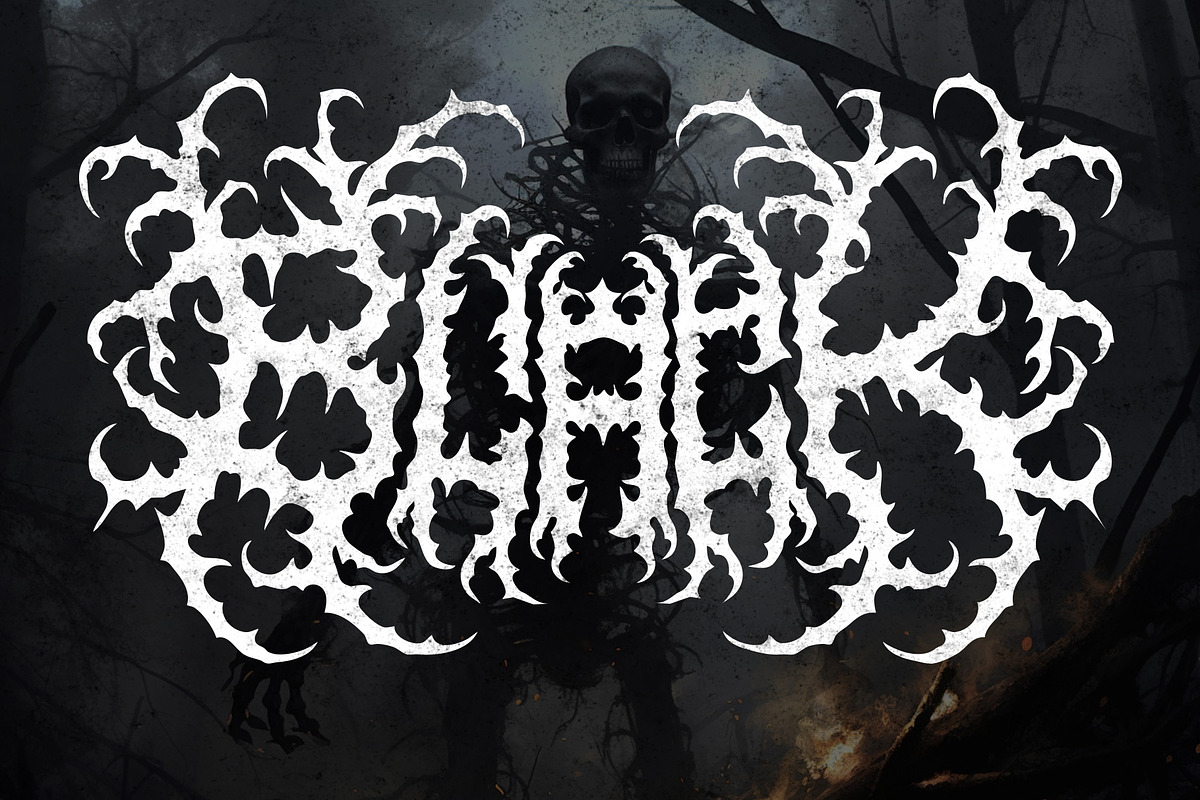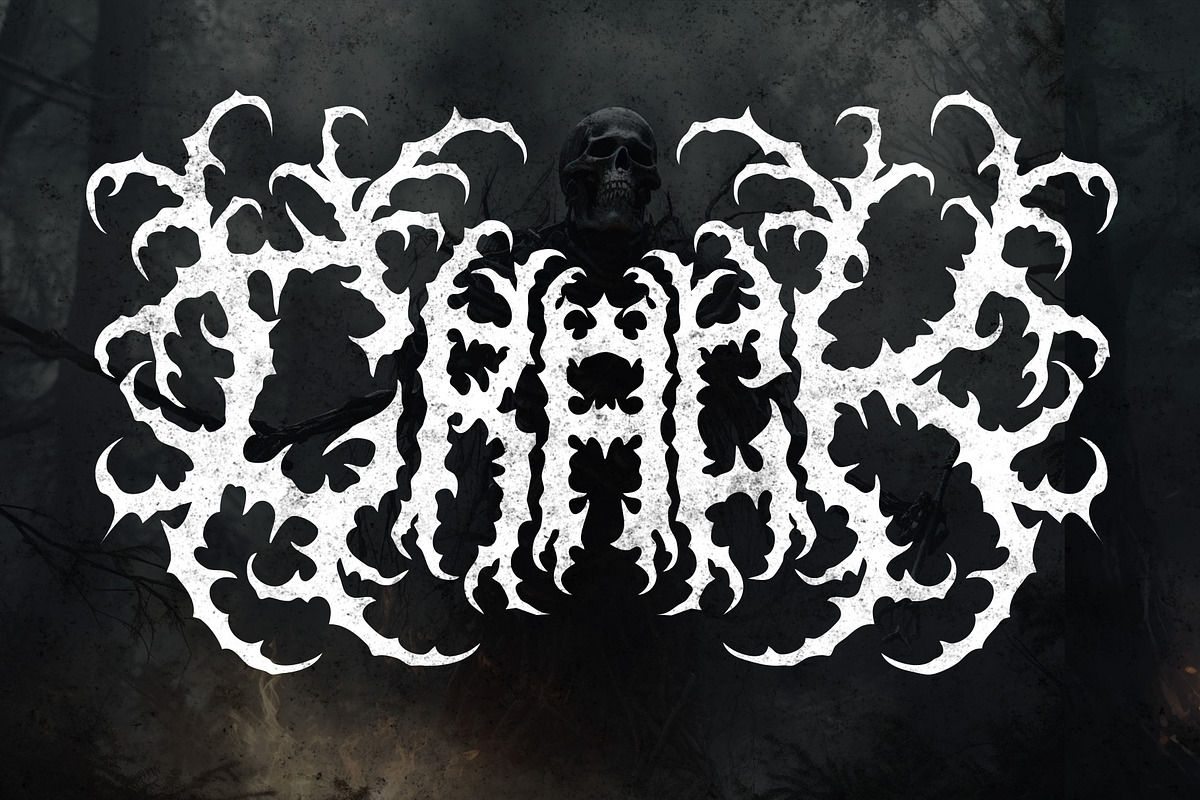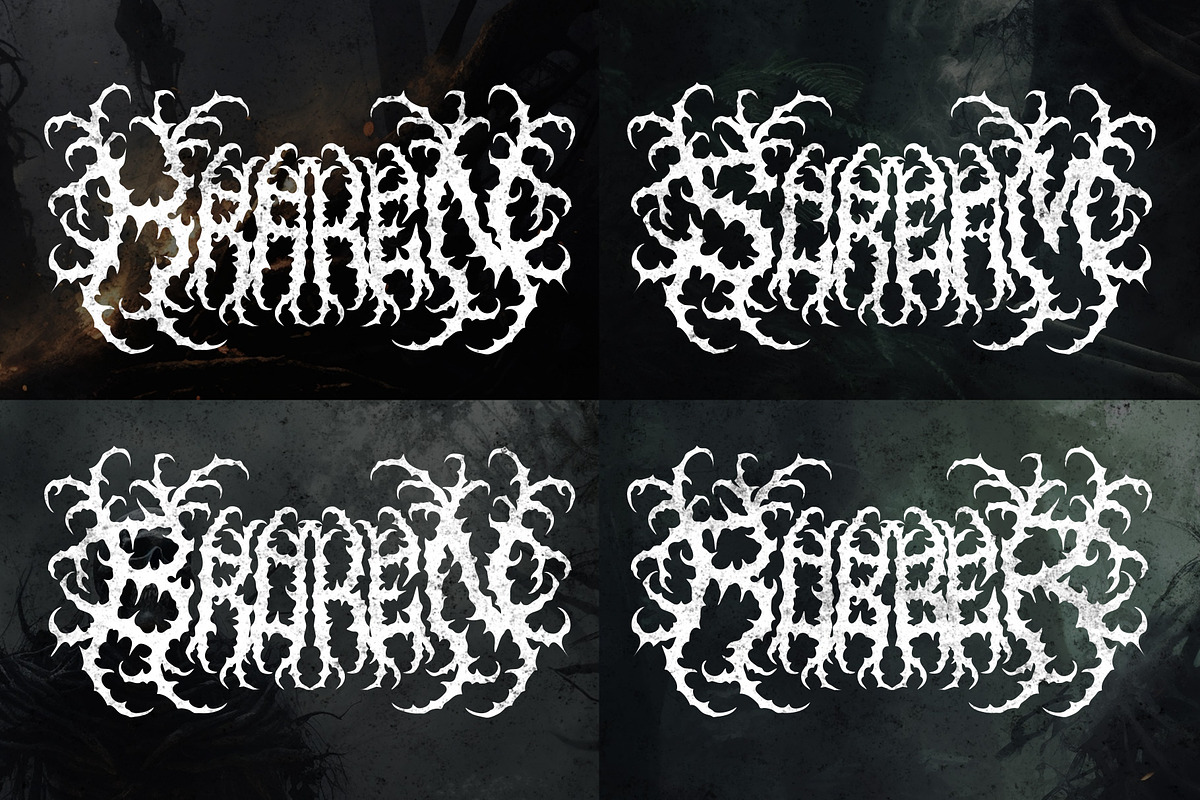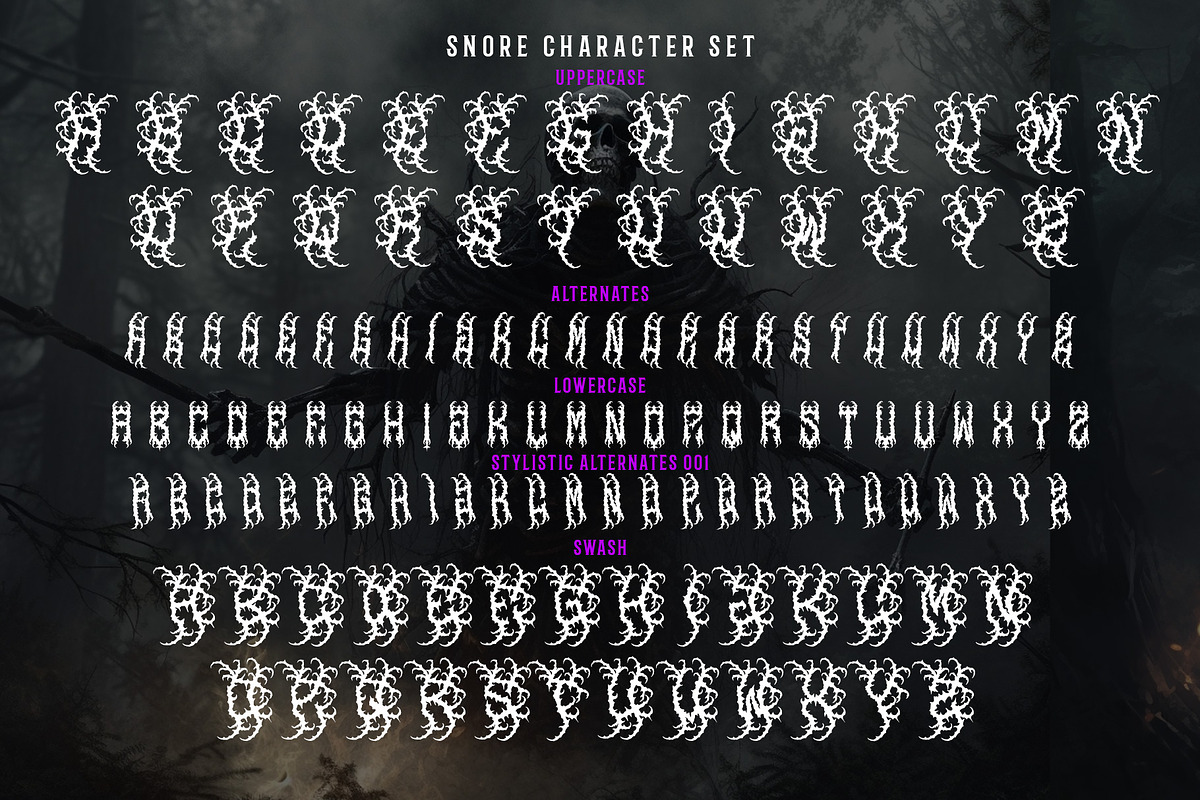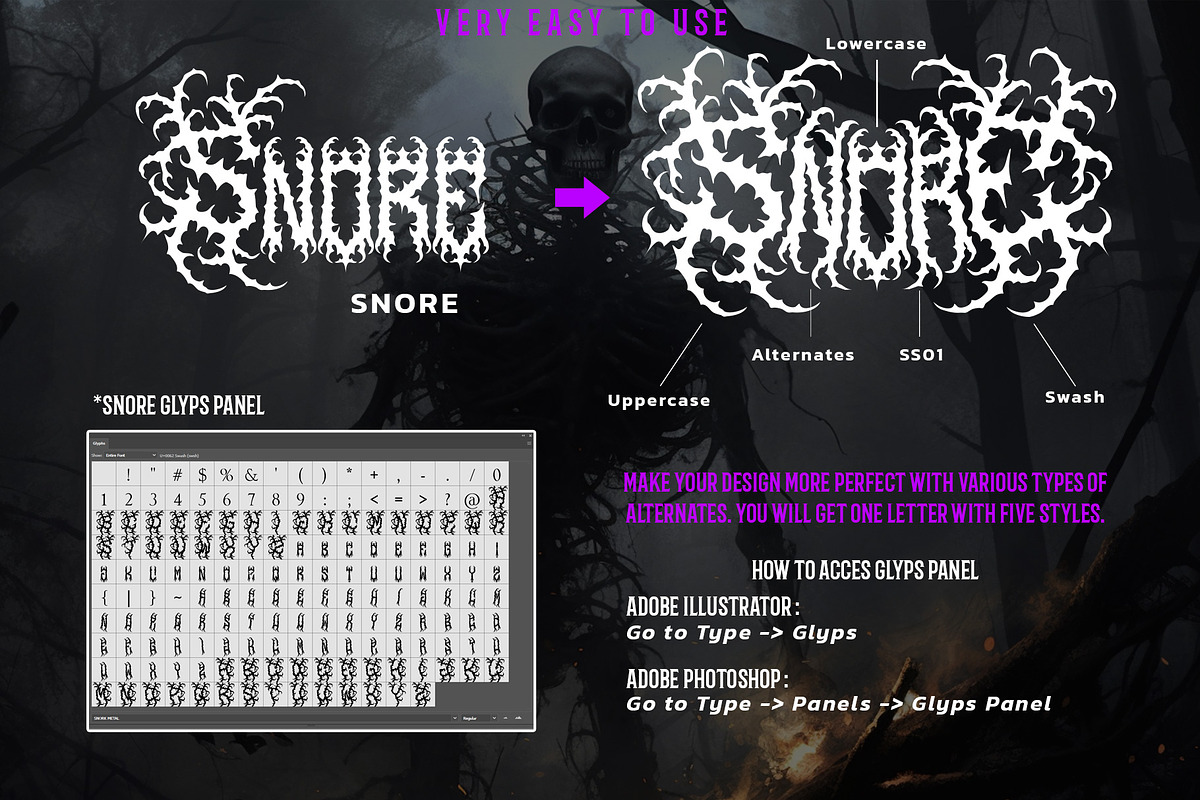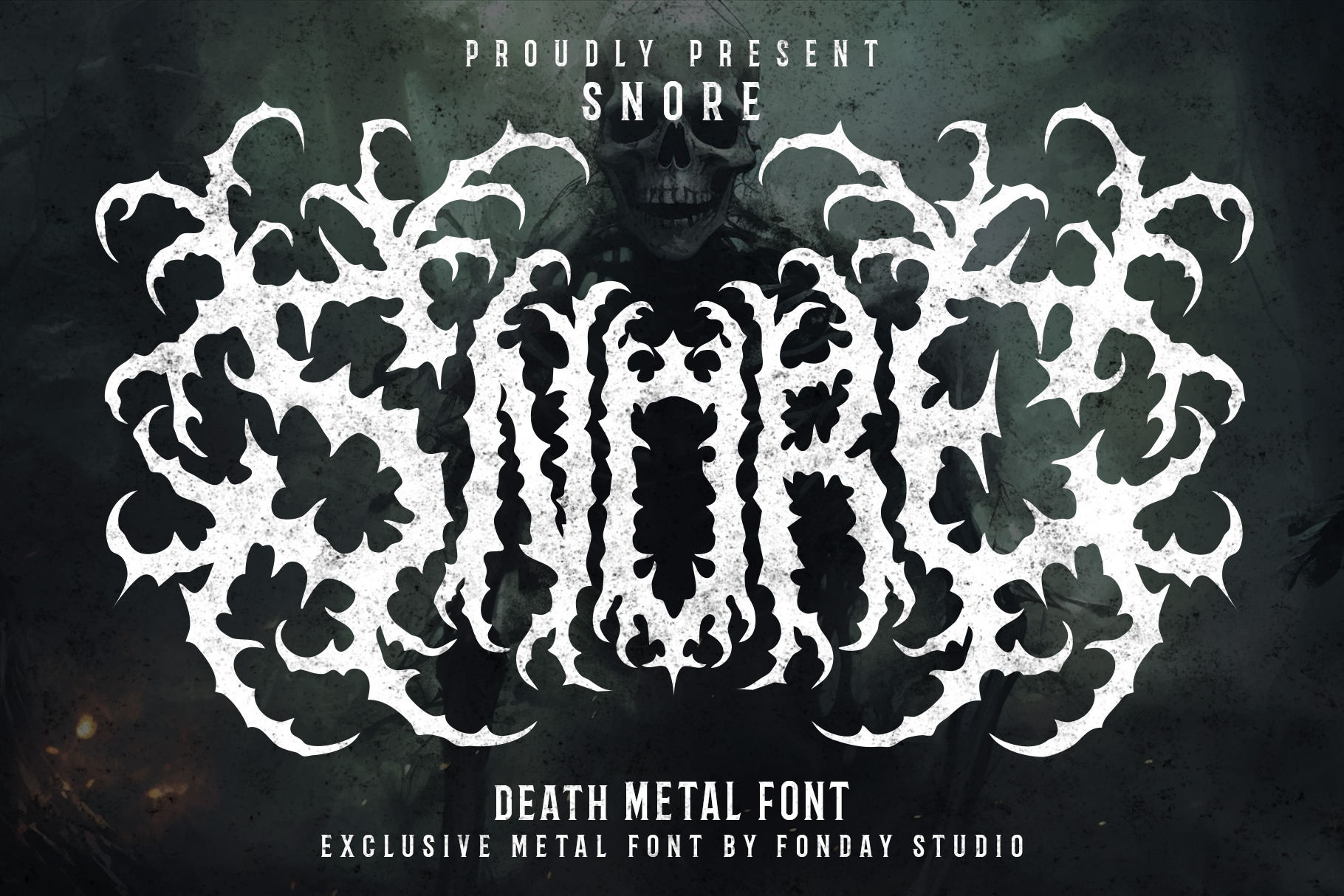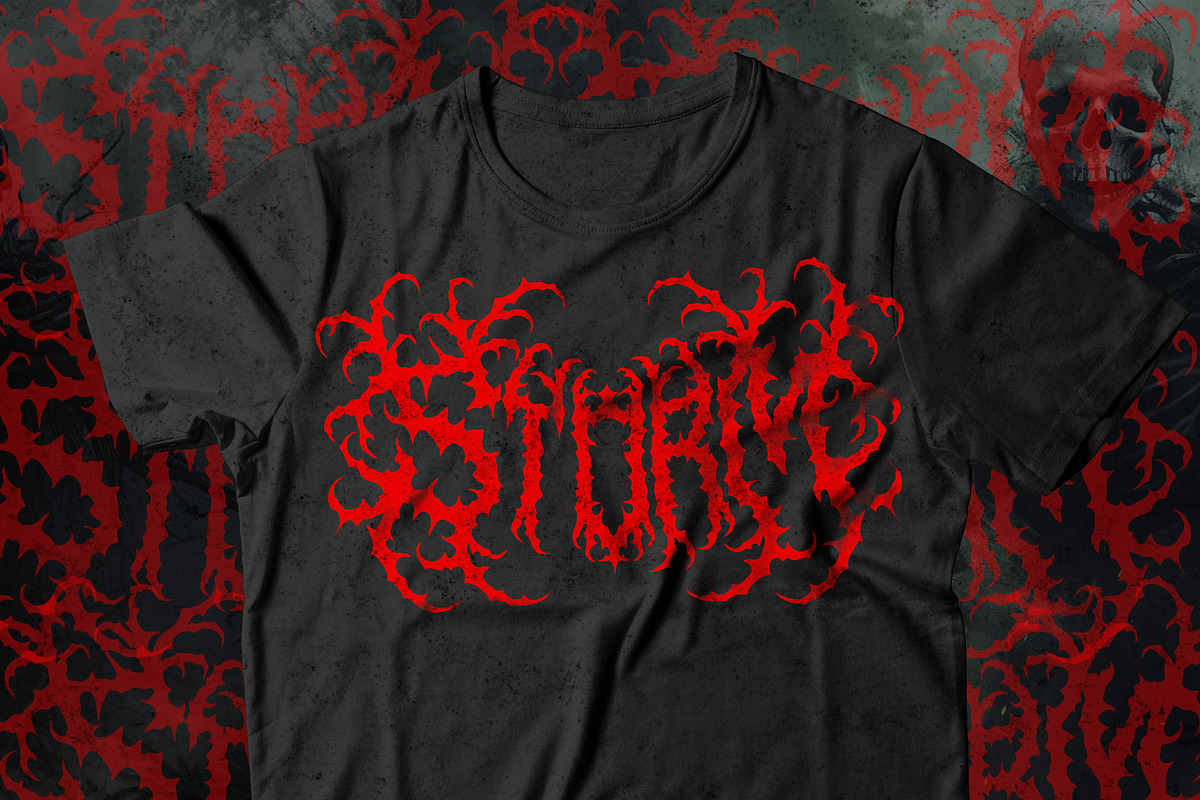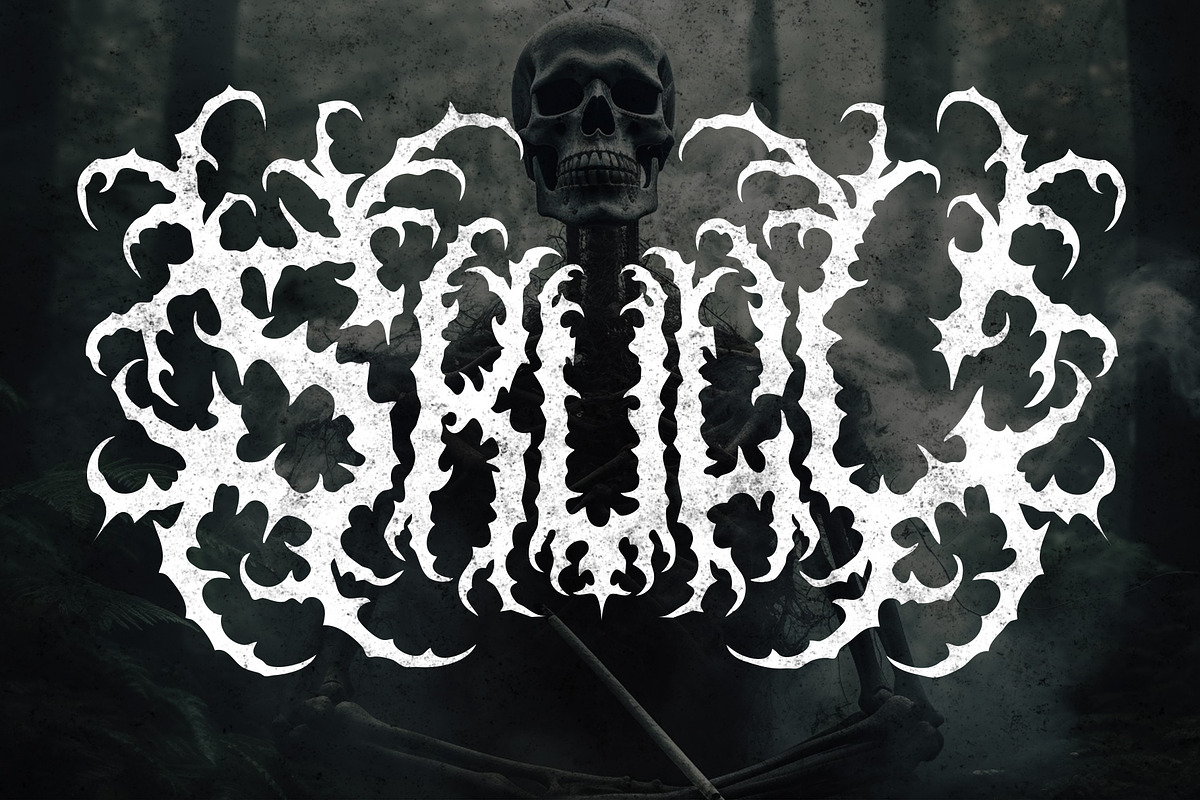
SNORE – Black Metal Font
Introducing SNORE, our font that brings the thunderous energy of metal music to life. With its bold and powerful design, Snore is perfect for creating designs that resonate with the raw intensity and passion of metal bands.
Snore’s unique style will make your designs stand out, with its strong shapes and distinctive letterforms. Whether you’re creating album covers, merchandise, or promoting a metal concert, Snore will give your designs a memorable look that captures the essence of metal music.
- All Caps Character
- Stylistic Alternate